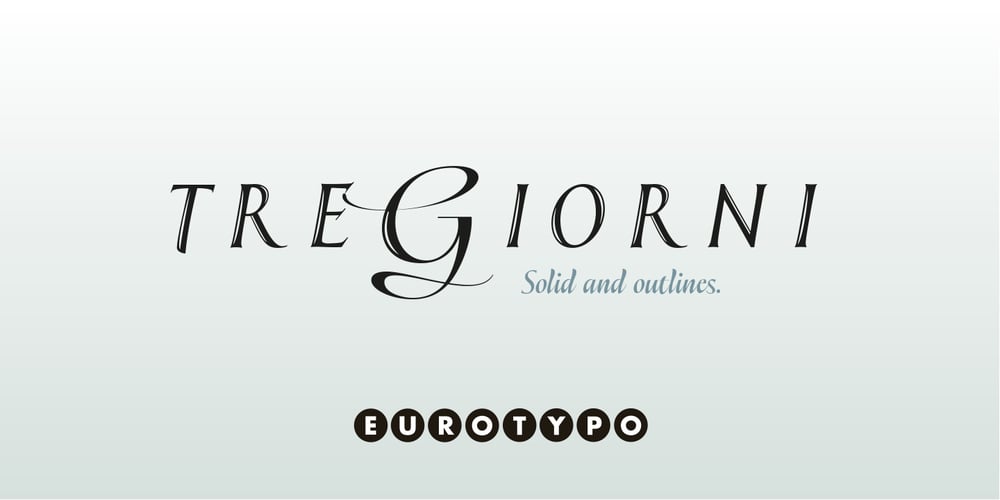
Tre Giorni Font Family was designed by Olcar Alcaide and published by Eurotypo. Tre Giorni contains 2 styles and family package options. Tre Giorni, is a variant of the “Due Giorni” font with the possibility of combining between the two. This useful writing font is very expressive, fresh, agile and organic. It comes in two styles: Solid and outline (just a little shine) Each font contains 571 glyphs with many OpenType features: standard and discretionary ligatures, stylistic alternates, decorative characters, old-style figures, small caps, titles, case sensitives, and ornaments. Specially designed for creating eye-catching headlines, logos, packaging, greeting cards, advertisements and websites. It also has good readability for longer texts.